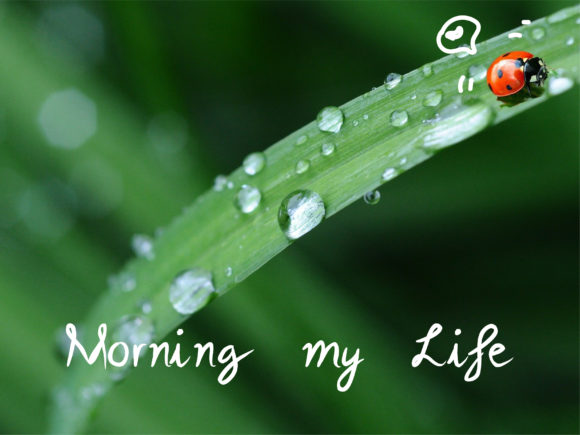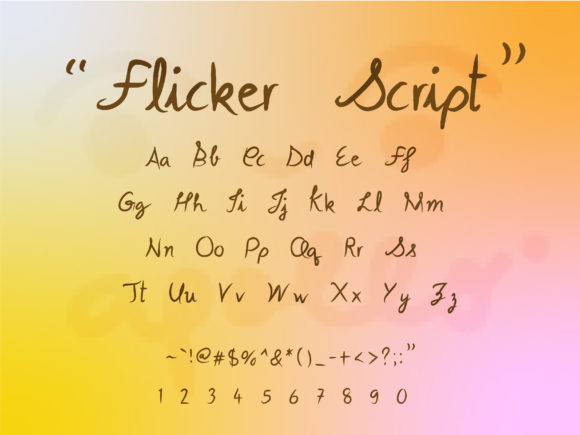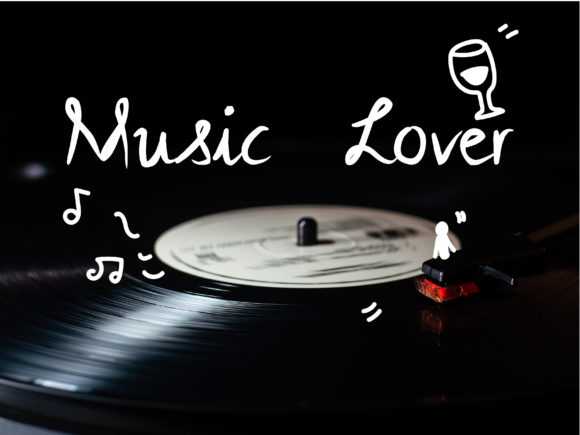
Have you ever found yourself staring at a blank page, trying to come up with the perfect design to capture the essence of your project? You’re not alone. Many designers face this hurdle, searching for the perfect font to elevate their work. For those seeking a beautiful and refreshing look, there’s a new addition to the world of typography that’s sure to spark inspiration: the Flicker Script Font.
This delicate script font is designed to bring a touch of elegance and sophistication to any design. Its intricate details and flowing lines make it perfect for projects that require a sense of whimsy and romance. Whether you’re creating a wedding invitation, a branding campaign, or a social media post, the Flicker Script Font is sure to add a touch of magic to your work.
Flicker Script Font Key Features
- Font Style: A unique, elegant script font with a vintage flair, ideal for creative projects and designs.
- Unique Characteristics: Flicker Script features intricate connections between letters, giving it a hand-written feel and unique aesthetic.
Flicker Script Font Review
I recently had the chance to work with the Flicker Script Font, and I wanted to share my honest thoughts about it. ✨ First of all, I love the elegant and sophisticated feel of this script font. It’s perfect for adding a touch of luxury and whimsy to any design project.
The Flicker Script Font is highly customizable, allowing you to adjust the size, color, and spacing to fit your design needs. This level of control makes it a great choice for designers who like to have a high degree of flexibility in their work.
Here are some of the things that work well with the Flicker Script Font:
- ✨ Elegant and sophisticated feel
- ✨ Highly customizable
- ✨ Great for adding a touch of luxury and whimsy to designs
- ⚠️ May not be suitable for large blocks of text due to its script nature
- ⚠️ Can be difficult to read in certain font sizes or line heights
Overall, I think the Flicker Script Font is a great addition to any designer’s toolkit. While it may have some limitations, its elegant and sophisticated feel makes it a great choice for designers who want to add a touch of luxury and whimsy to their work.
Getting the Most Out of Flicker Script
To get the most out of Flicker Script, experiment with different font sizes, colors, and combinations with other fonts. Use it for titles, headings, or quotes to add a touch of elegance to your designs.
Flicker Script is commonly used for:
- Branding and logo designs
- Quote graphics and posters
- Editorial and publishing designs
Alternatives to Flicker Script Font
Great Vibes is a beautiful, elegant script font perfect for creative projects. It’s ideal for use in wedding invitations, branding, and any project that requires a touch of sophistication. Great Vibes is more refined and polished than Flicker Script Font, making it a great choice for formal designs.
Carolyna Pro is a modern script font that’s perfect for designers who want a clean and elegant look. It’s ideal for use in branding, packaging, and advertising. Carolyna Pro is more versatile than Flicker Script Font, making it a great choice for a wide range of design projects.
Alex Brush is a hand-drawn script font that’s perfect for designers who want a unique and personal touch. It’s ideal for use in creative projects, such as art books, posters, and websites. Alex Brush is more expressive and handwritten than Flicker Script Font, making it a great choice for projects that require a personal touch.